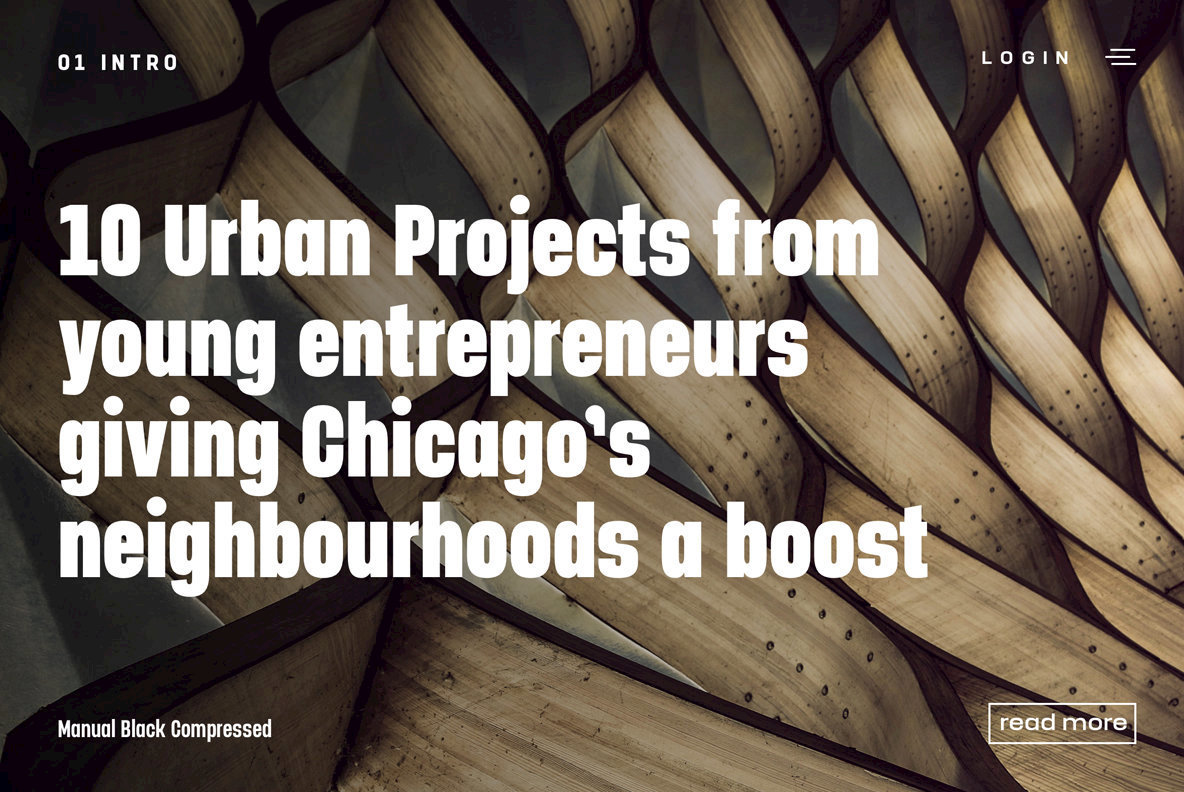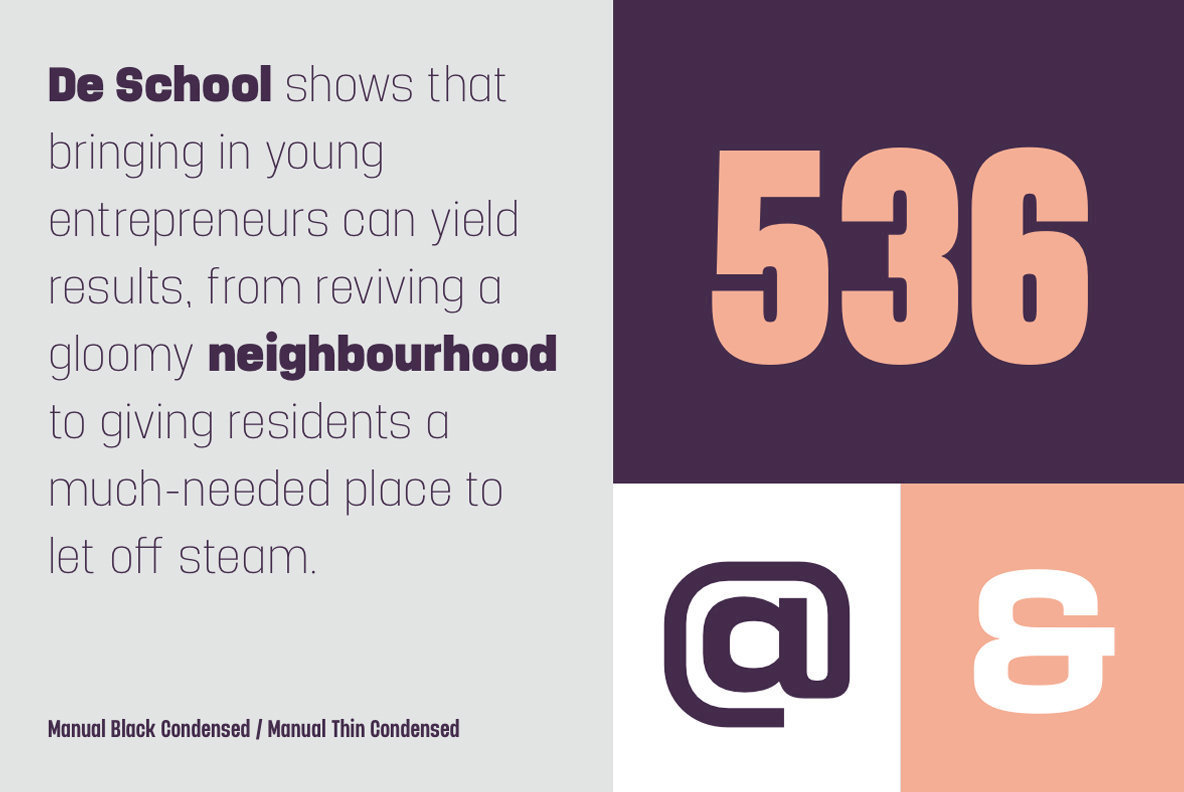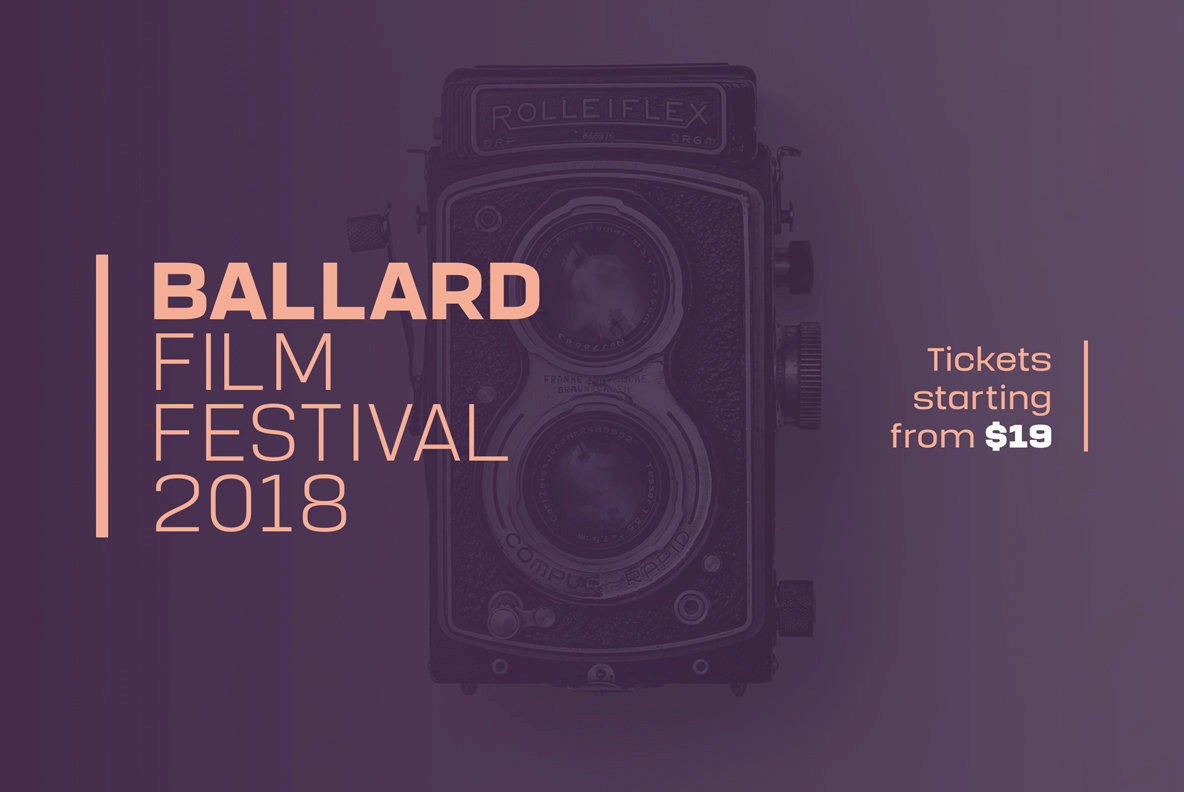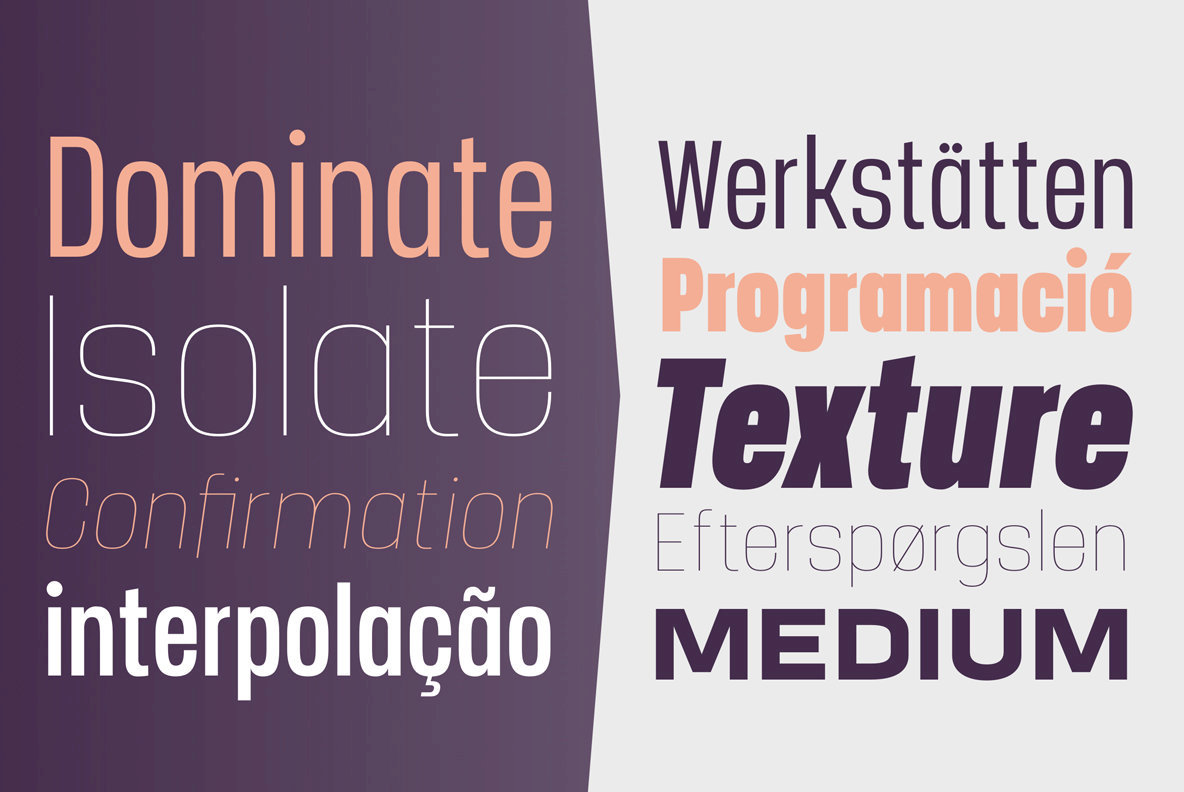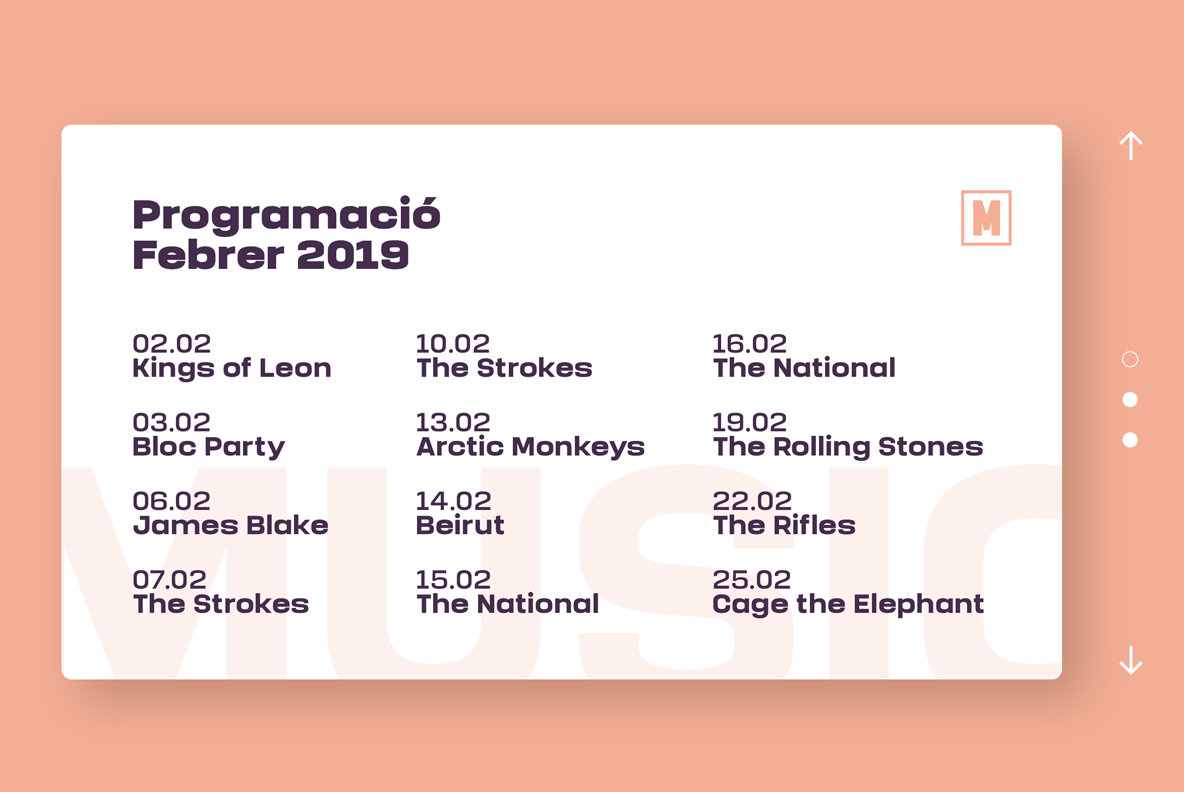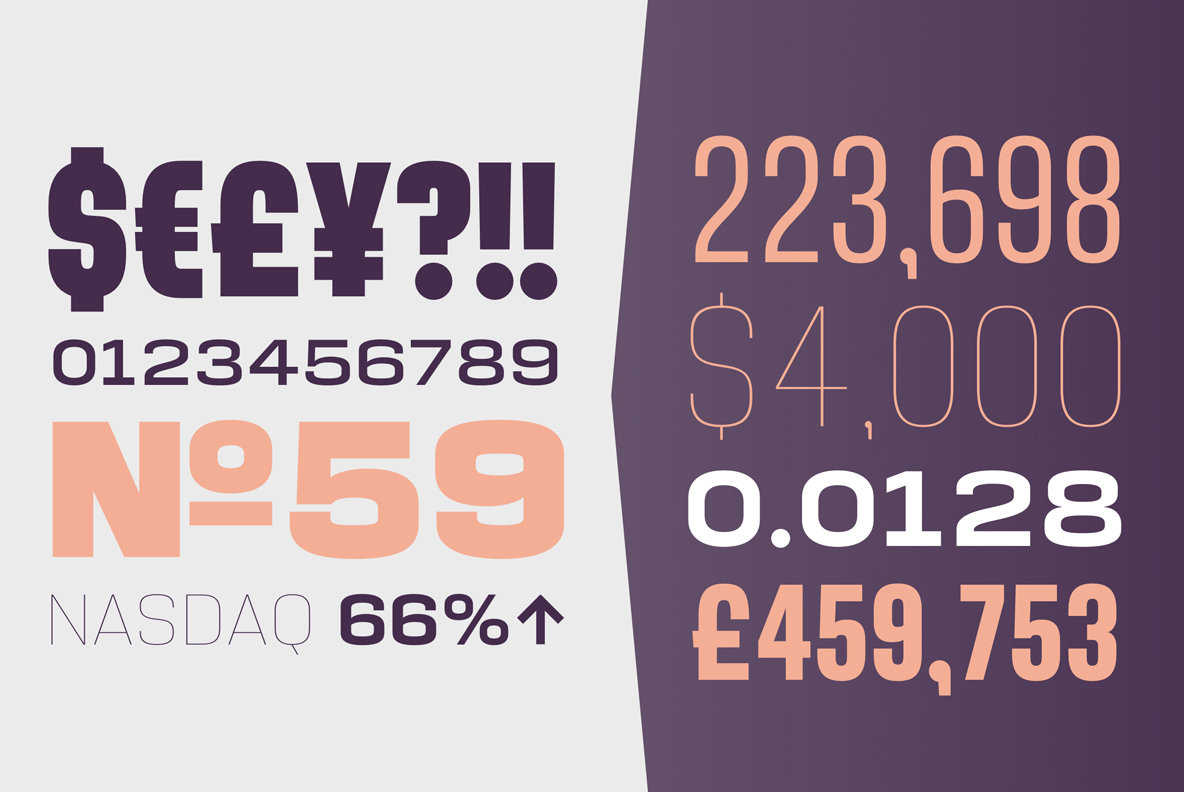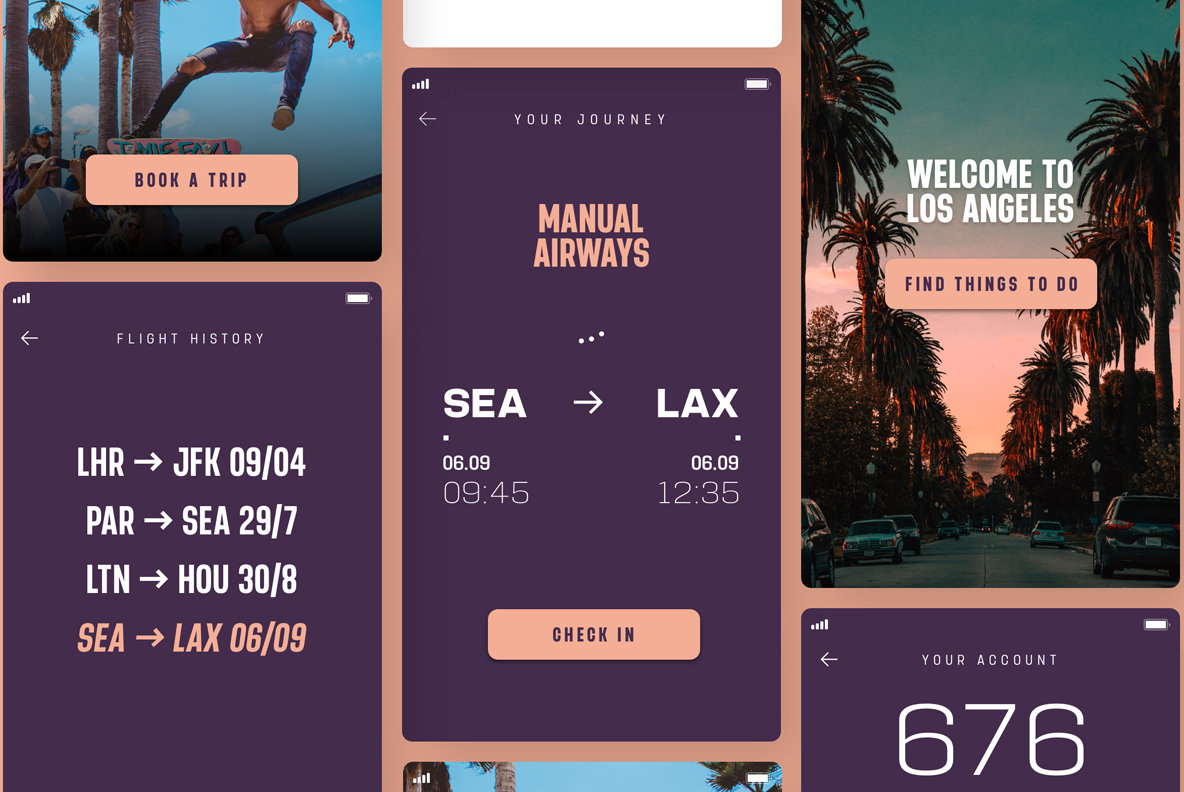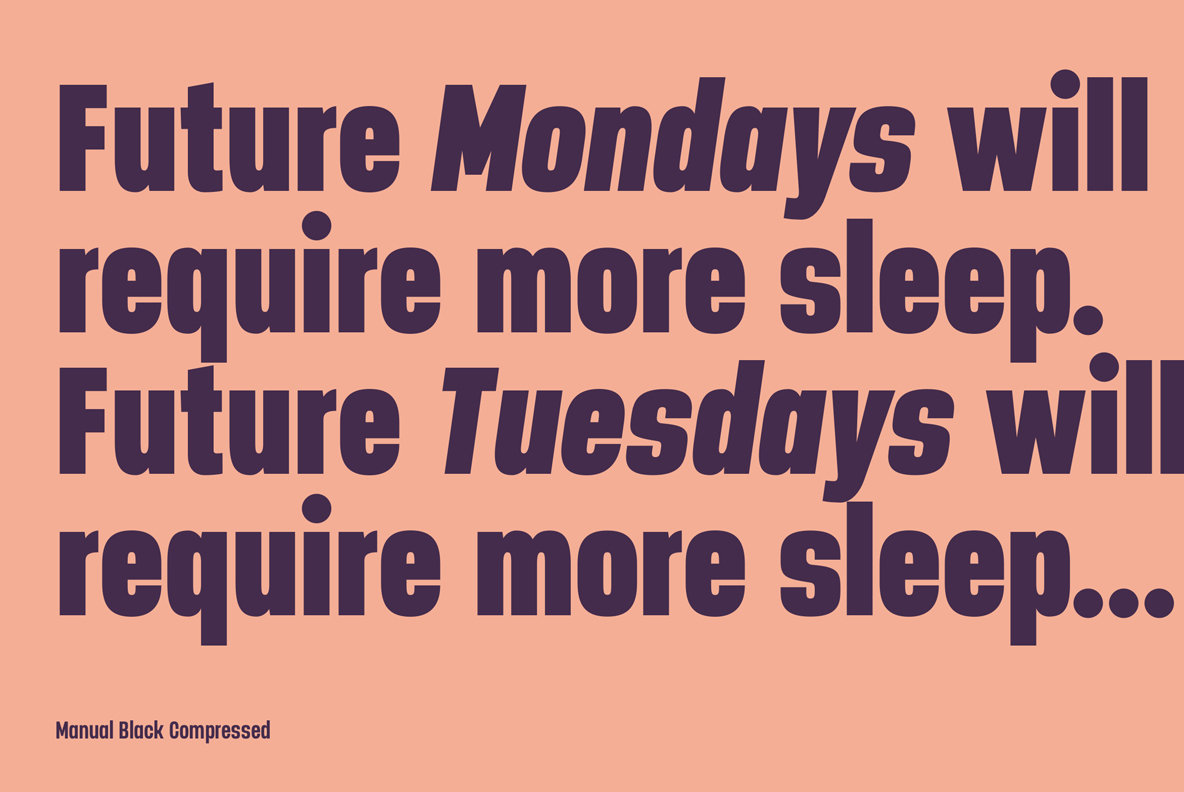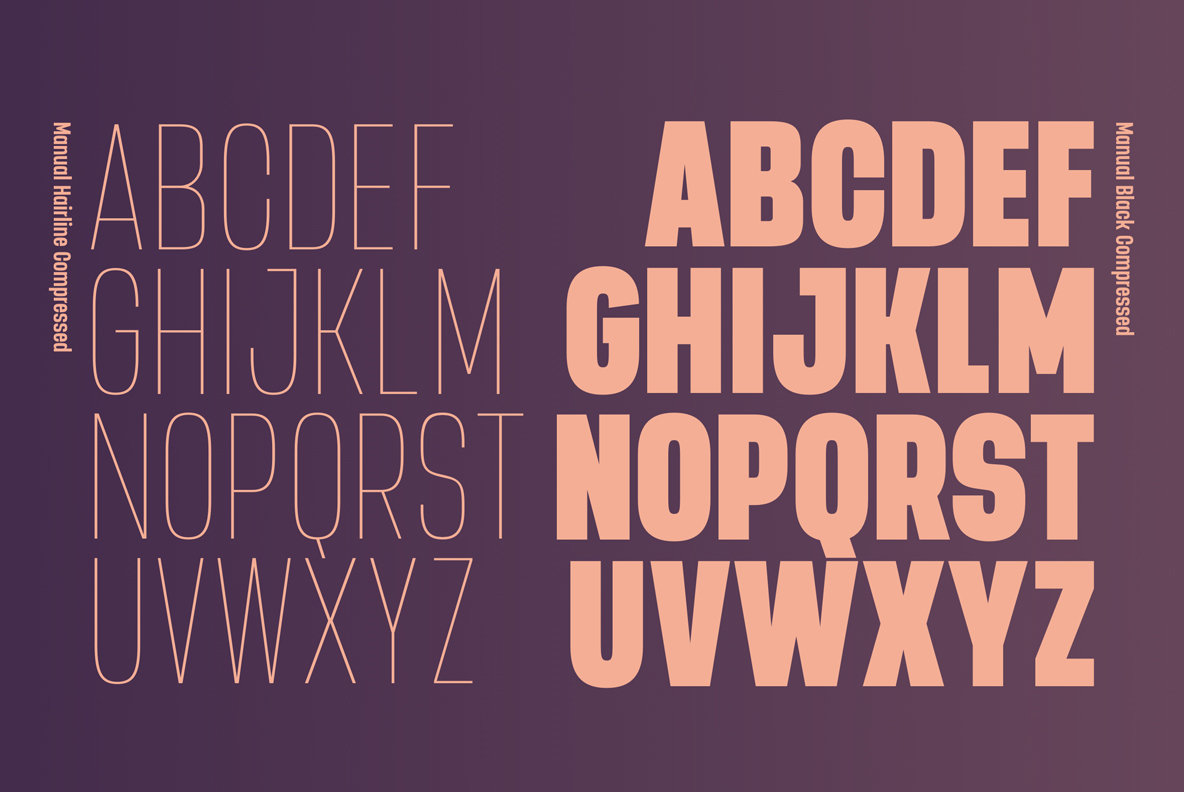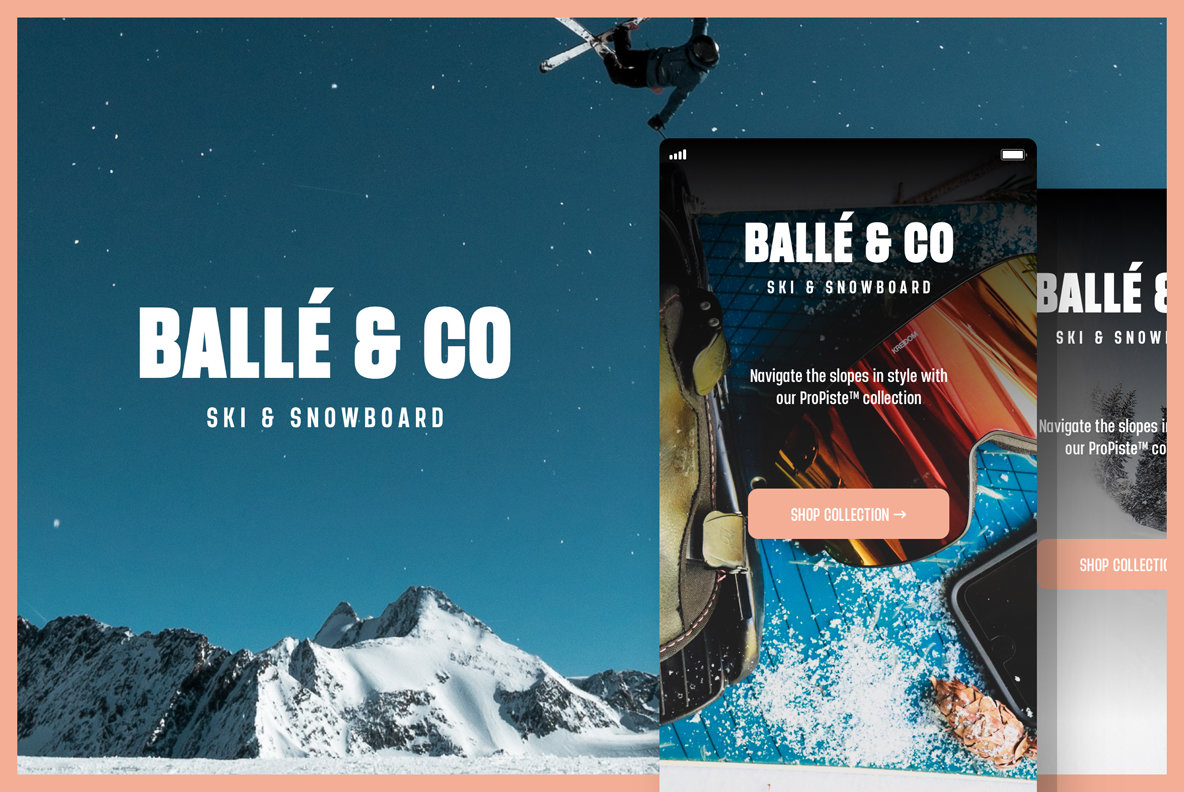
Manual Font
The higher x-height enhances the readability for smaller, more informative text sizes whereas the black weights create beautiful, impactful headlines to fit a variety of spaces. The support of the expansive weights and widths will give your design a truly unique feel.